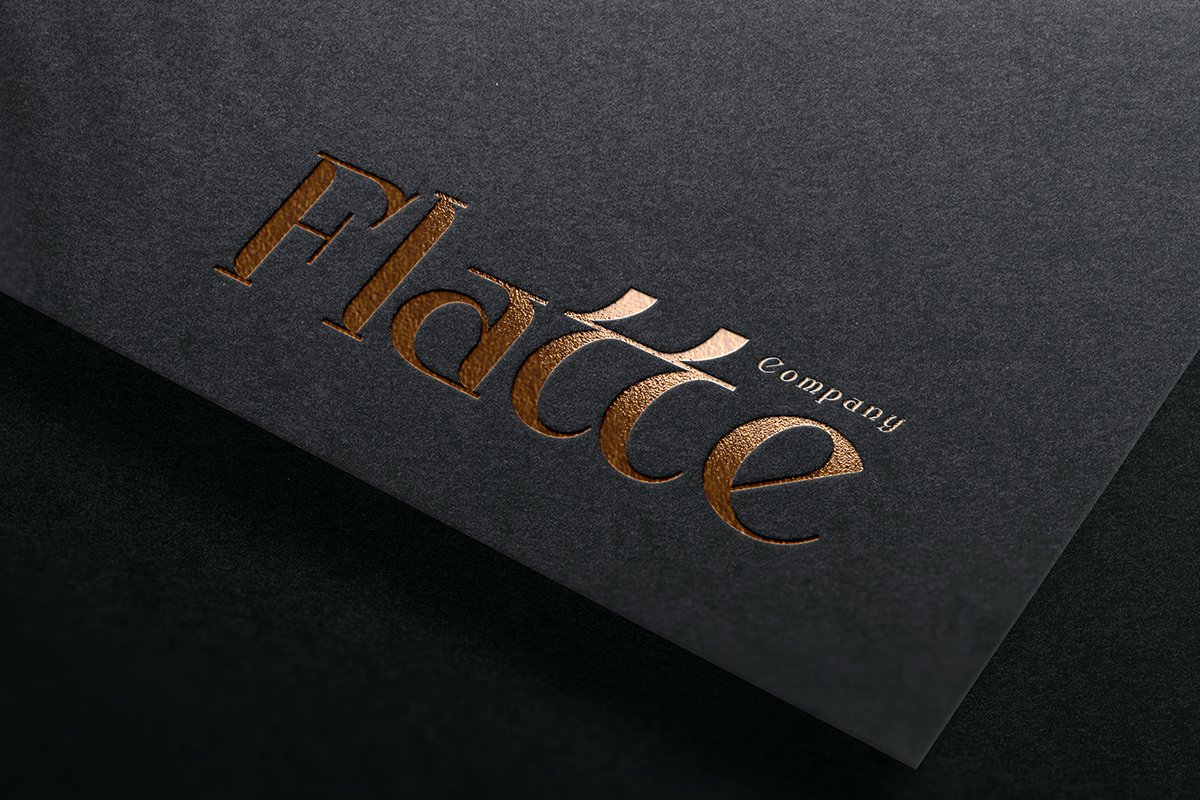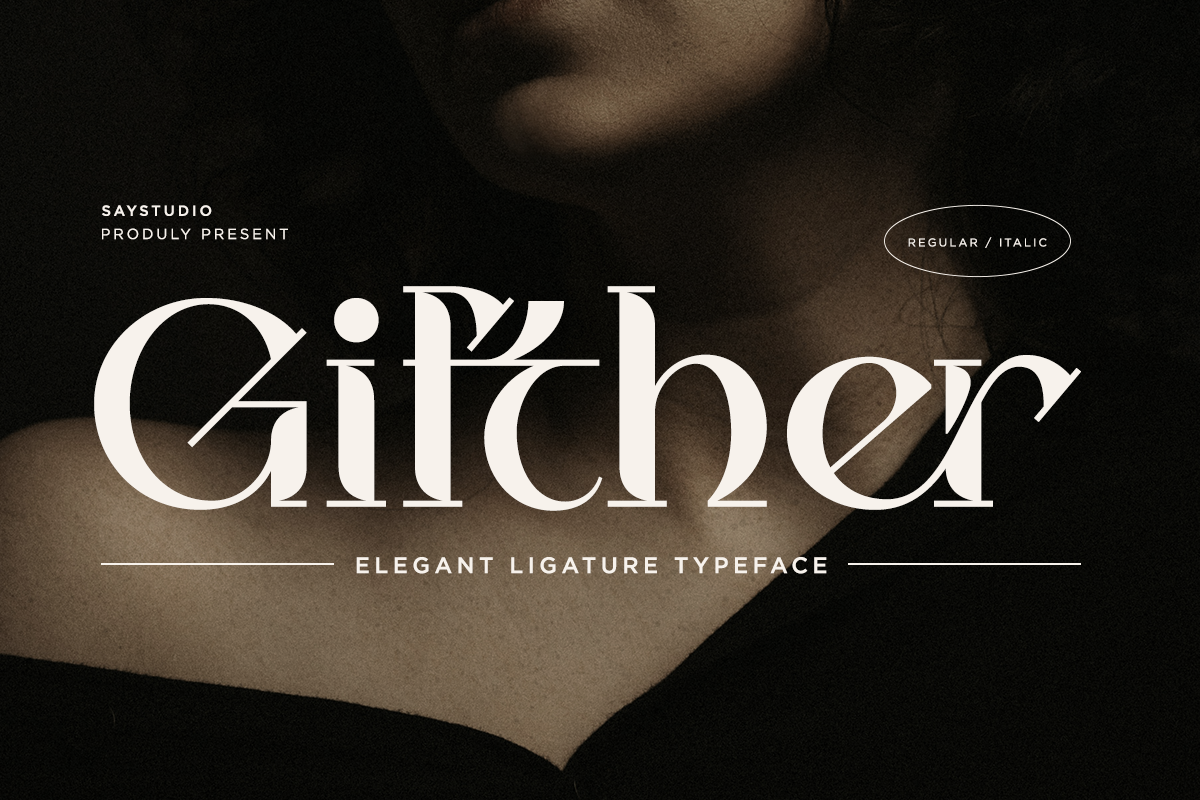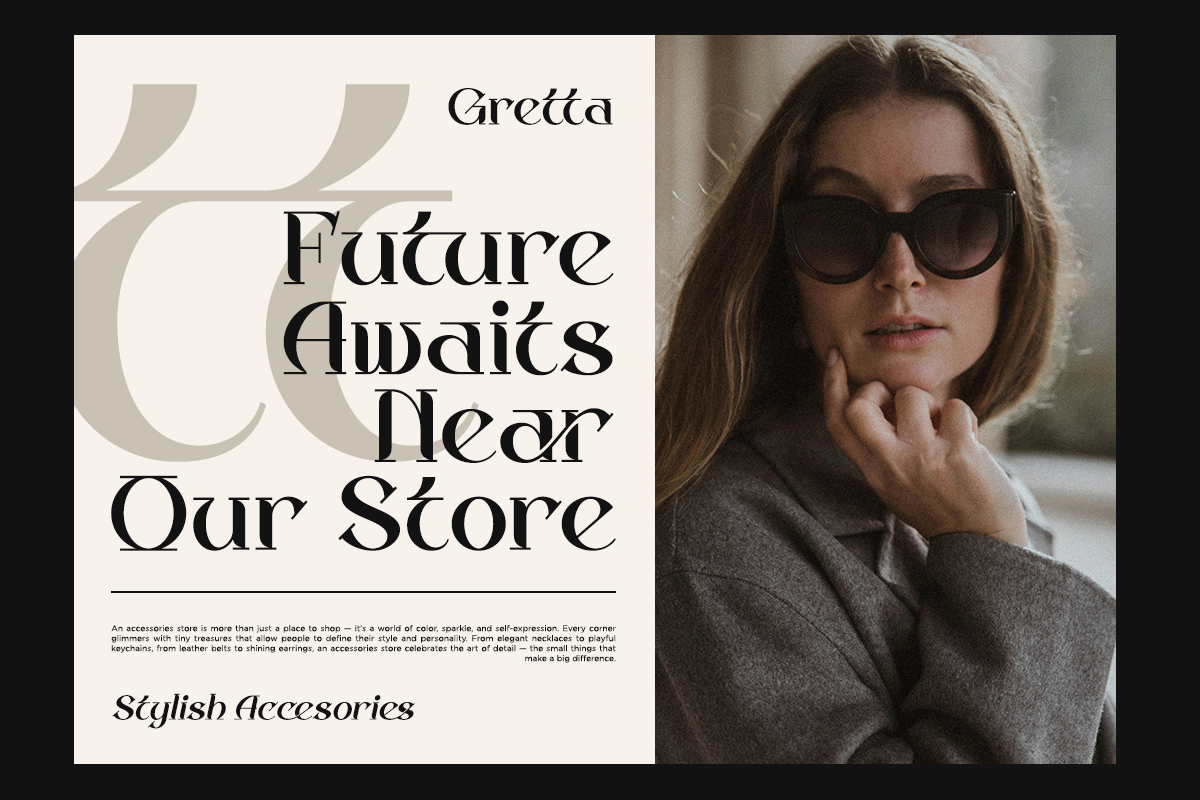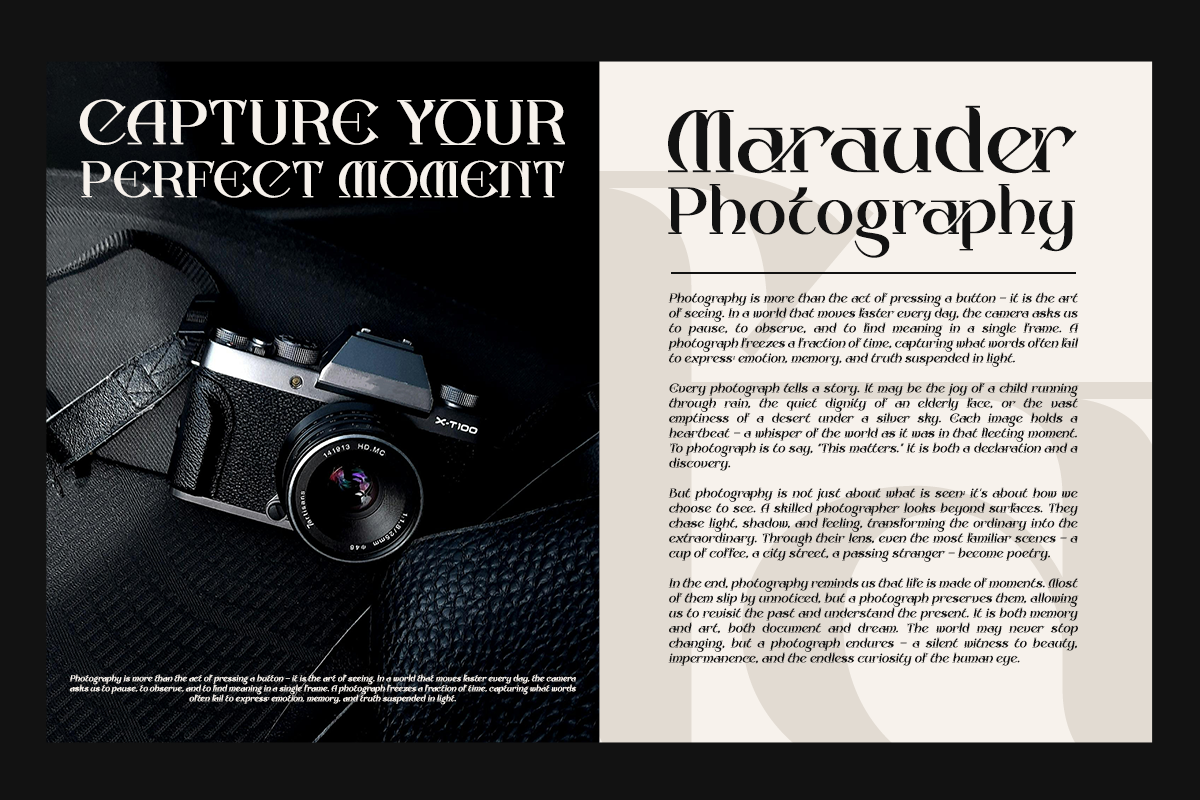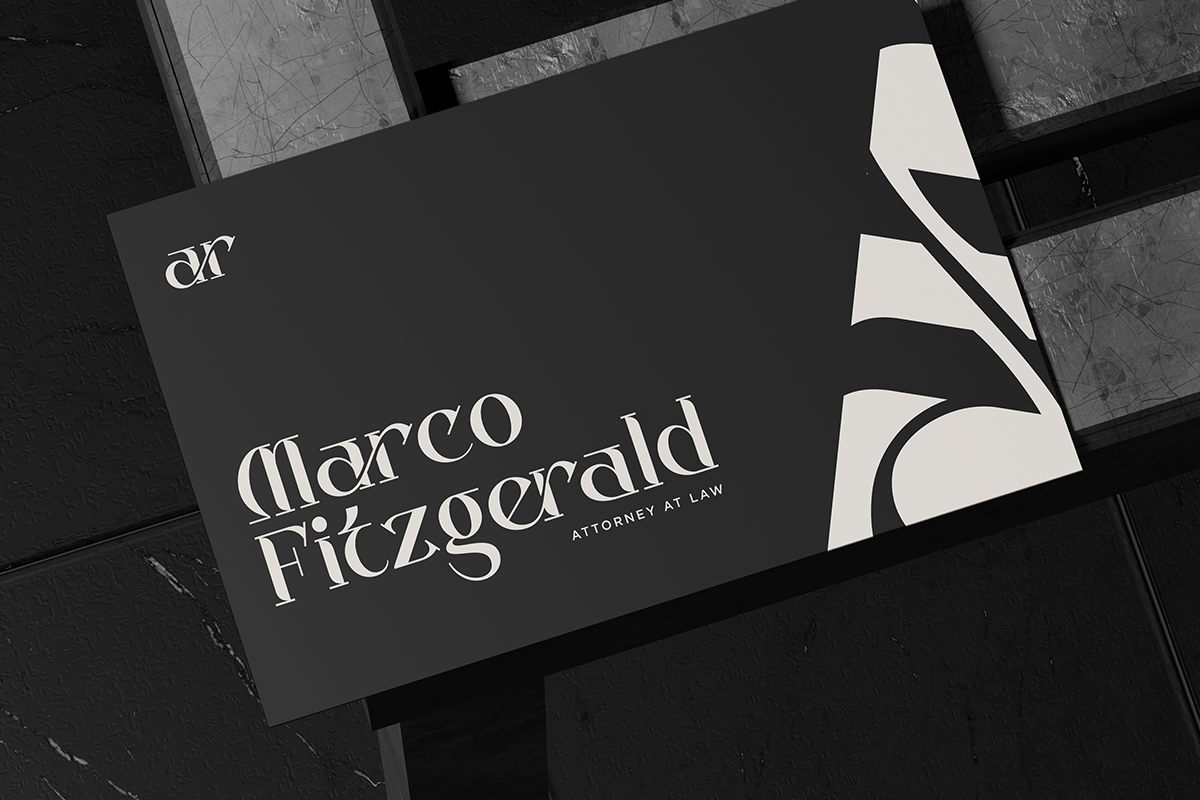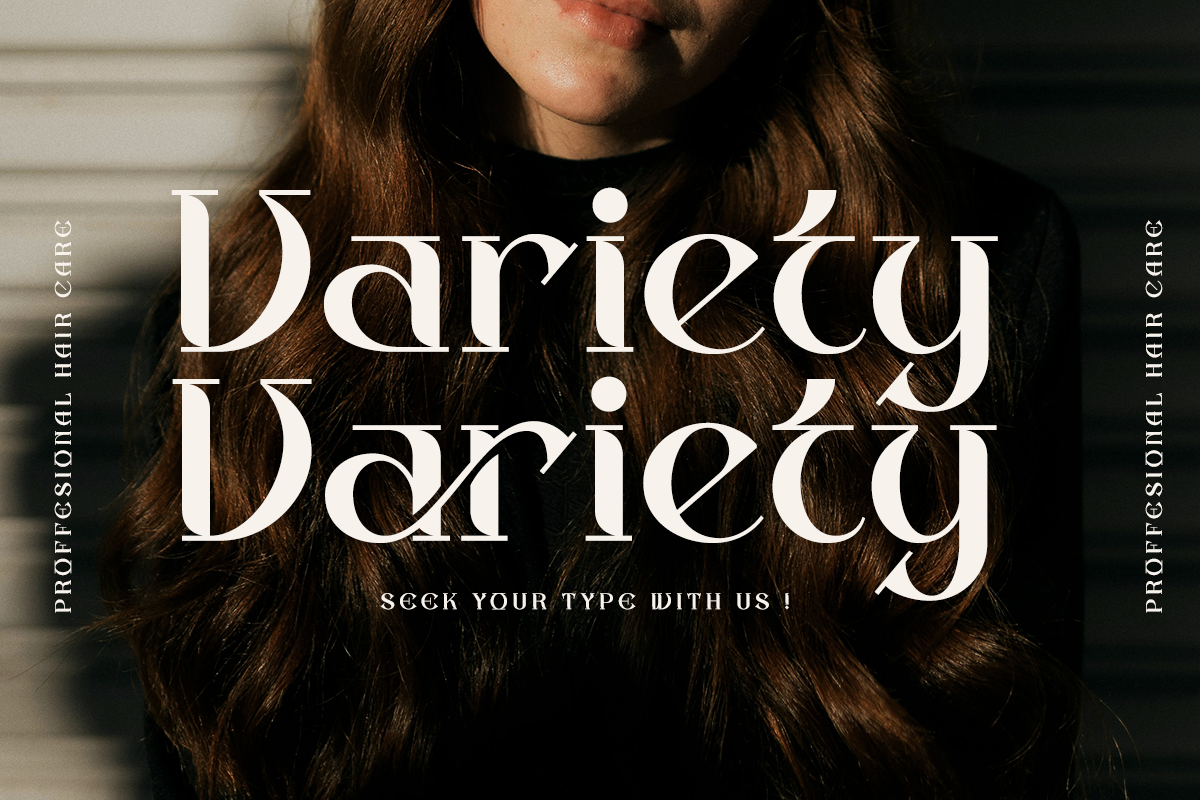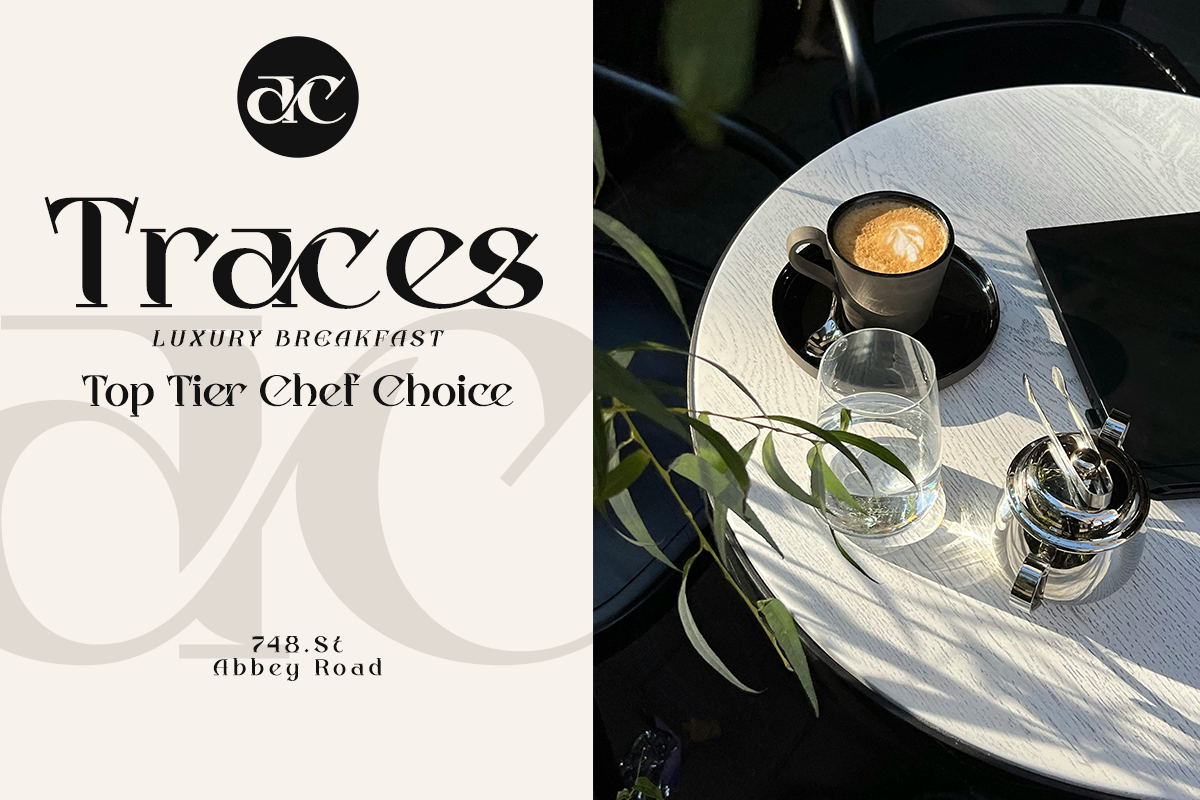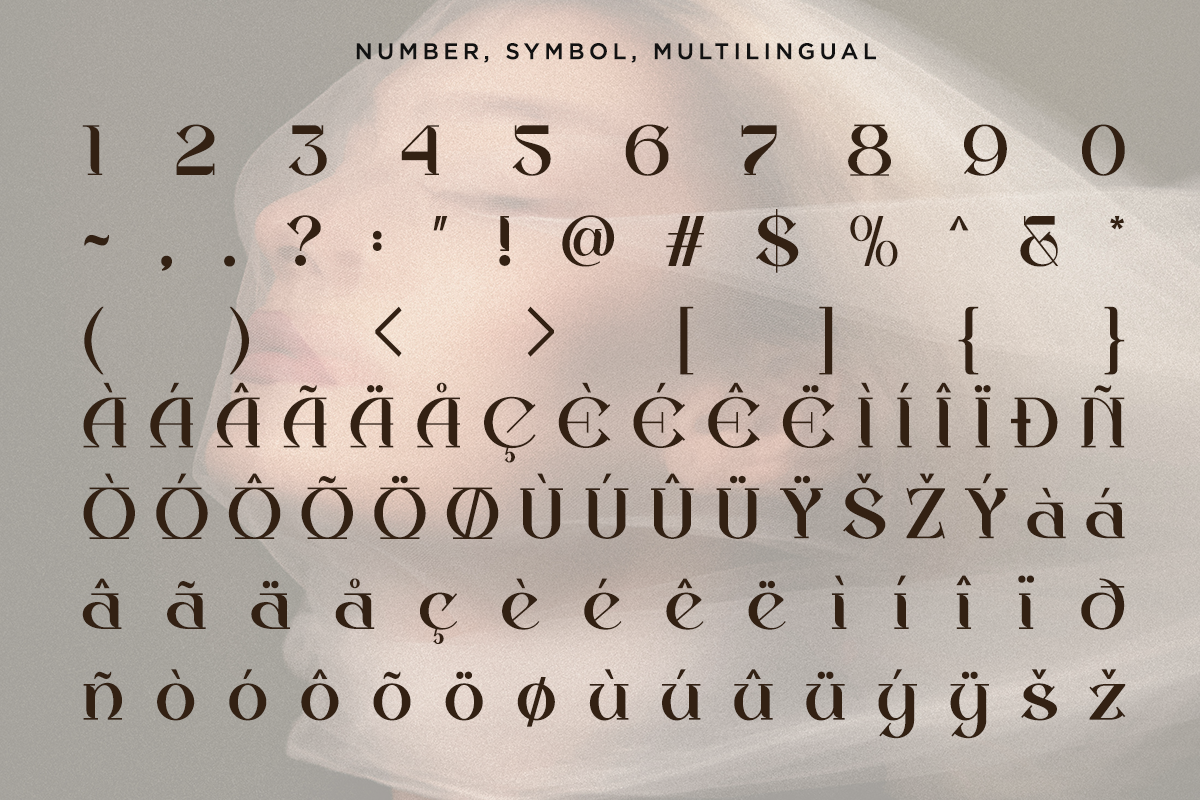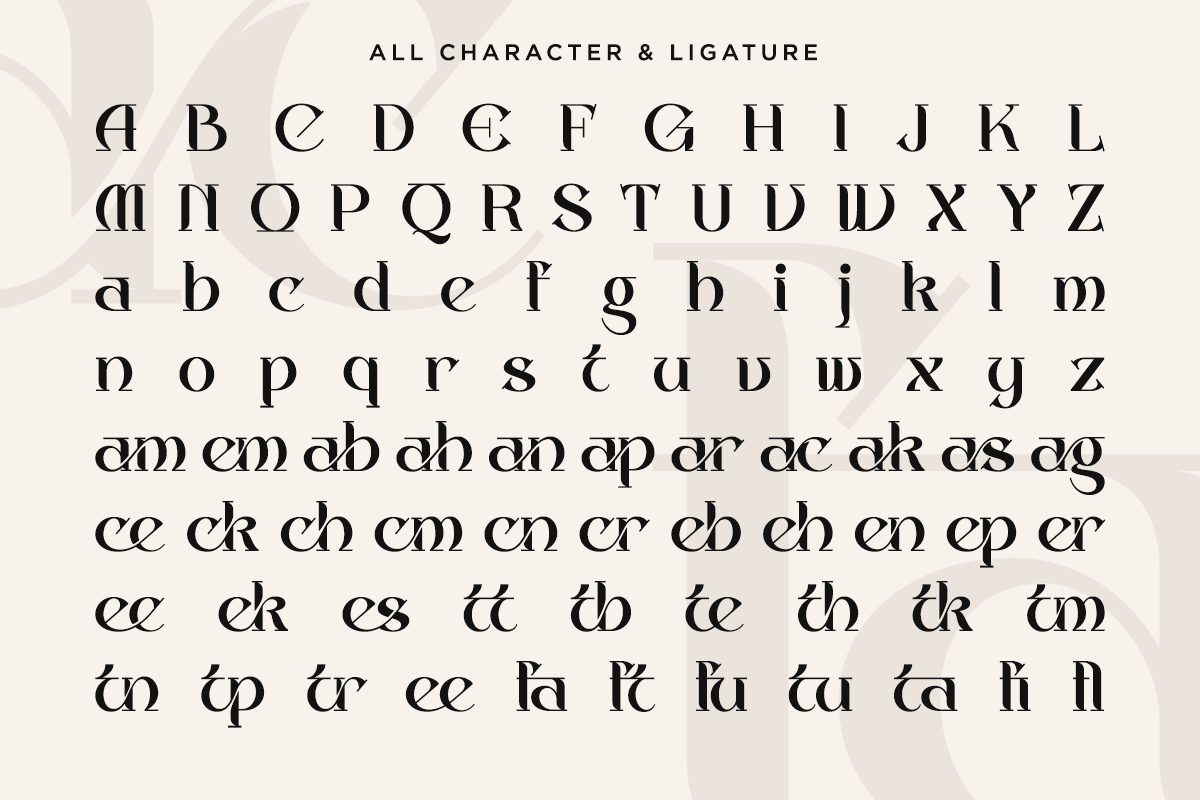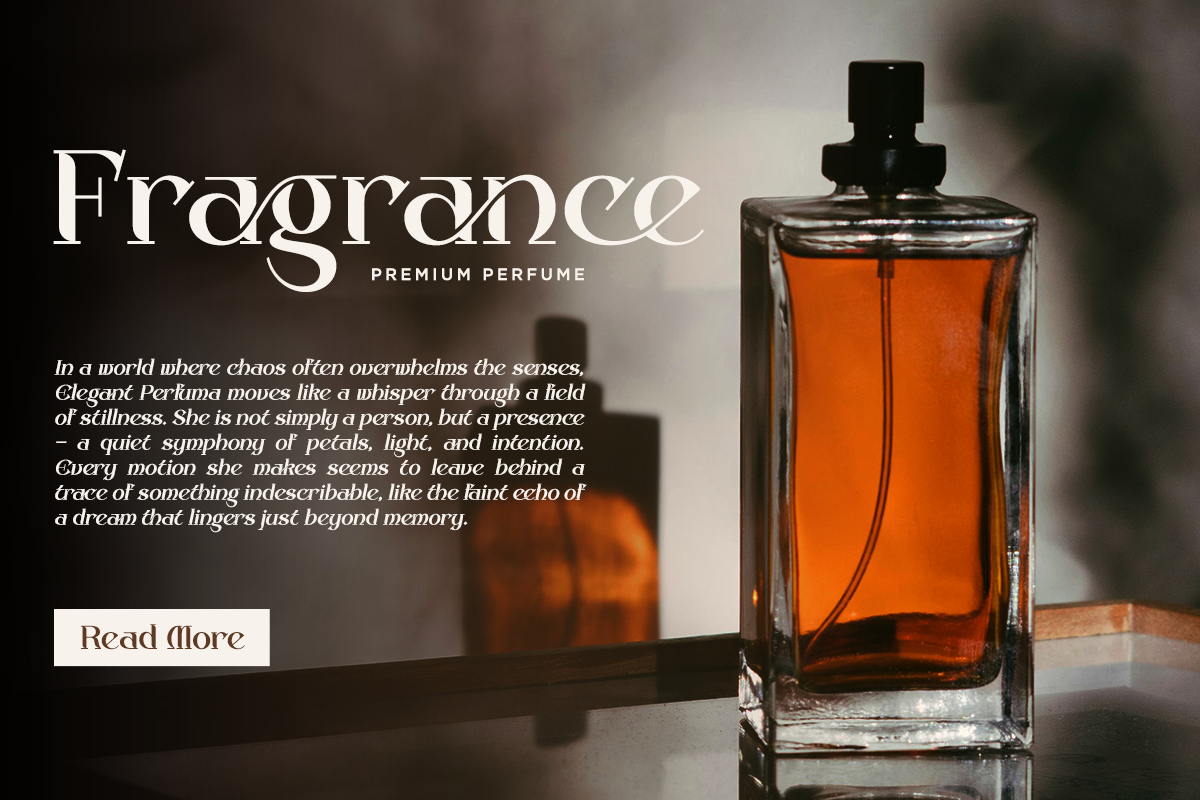
Gifther - Luxury Ligature Serif Font
Gifther is an elegant ligature serif font crafted to bring sophistication, luxury, and timeless beauty into every design. Featuring graceful letterforms, refined contrast, and beautifully crafted ligatures, Gifther delivers a premium editorial aesthetic that instantly elevates branding, fashion, and luxury projects.
Inspired by modern fashion magazines and high-end visual identities, this typeface is perfect for logos, packaging, magazine headlines, beauty brands, jewelry, cosmetics, wedding invitations, restaurants, cafés, photography, and premium social media content. Every character is carefully designed to create harmonious typography with effortless readability and distinctive personality.
Whether you're building an elegant brand identity or designing refined marketing materials, Gifther helps your work stand out with stylish details and professional versatility.
Regular and Italic
Stylistic Ligature
Number, Symbol, and Punctuation